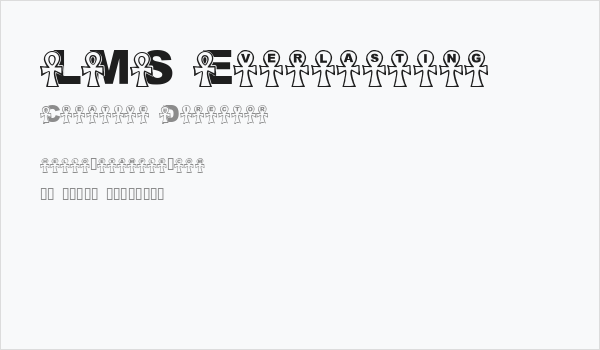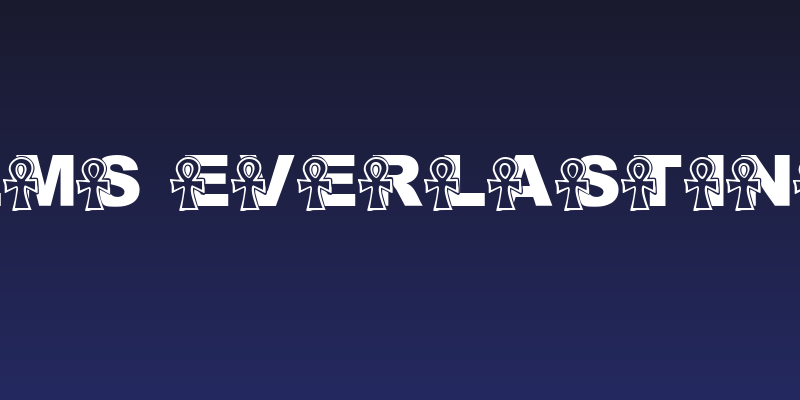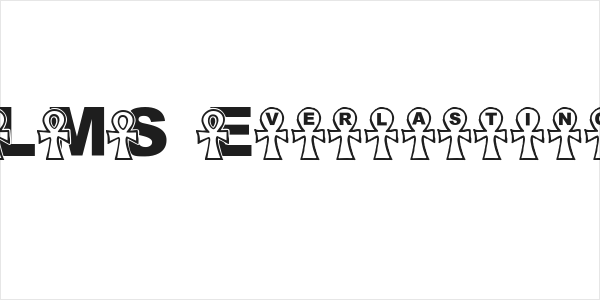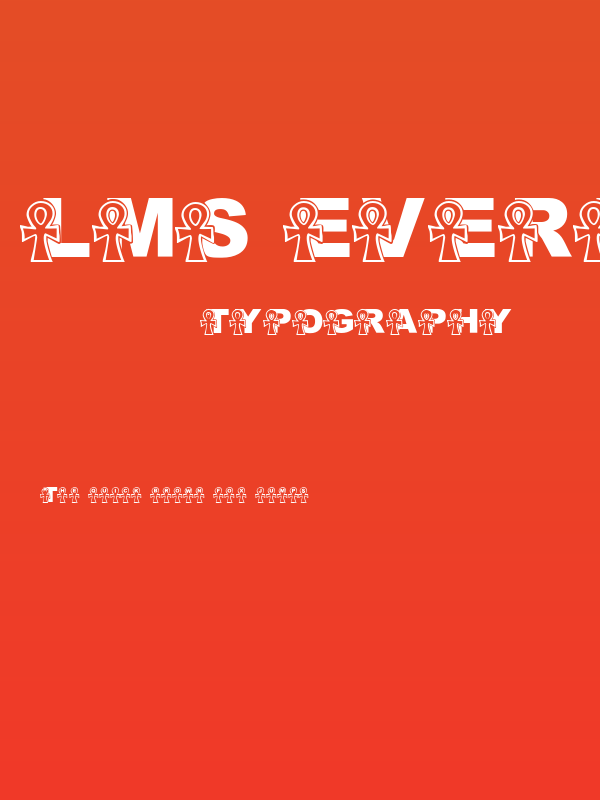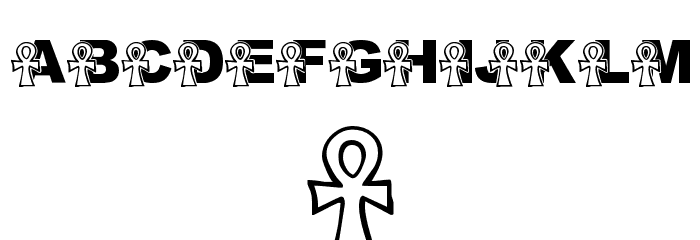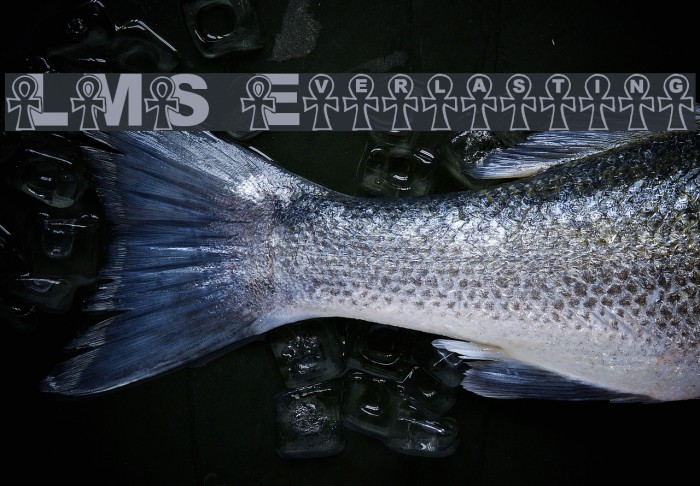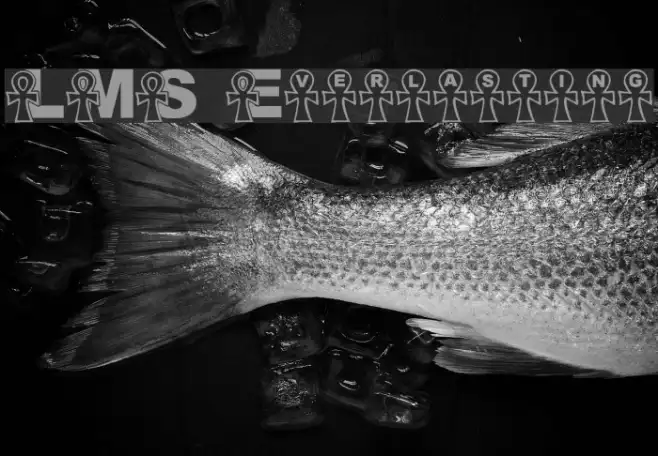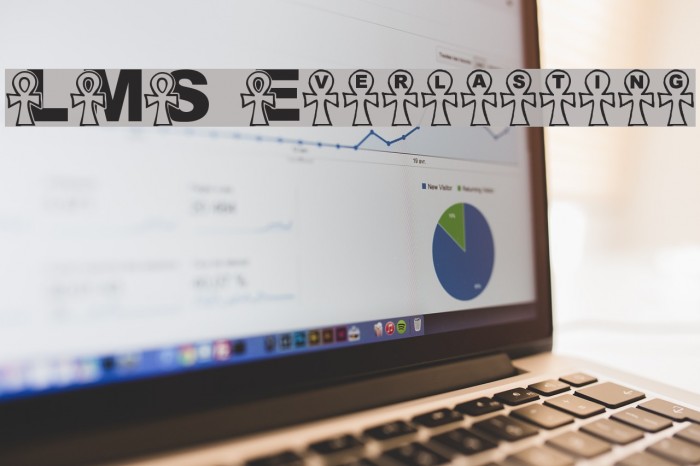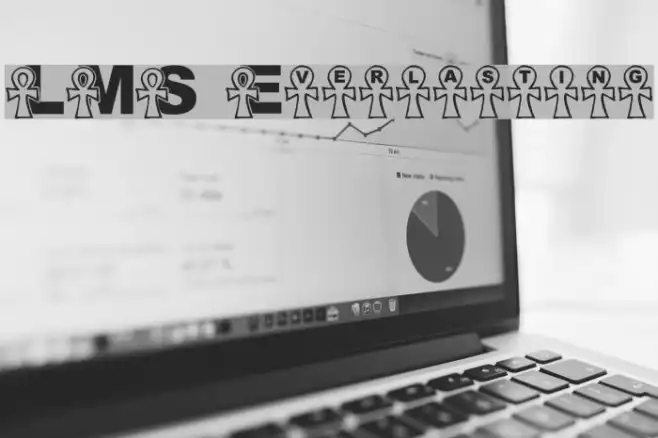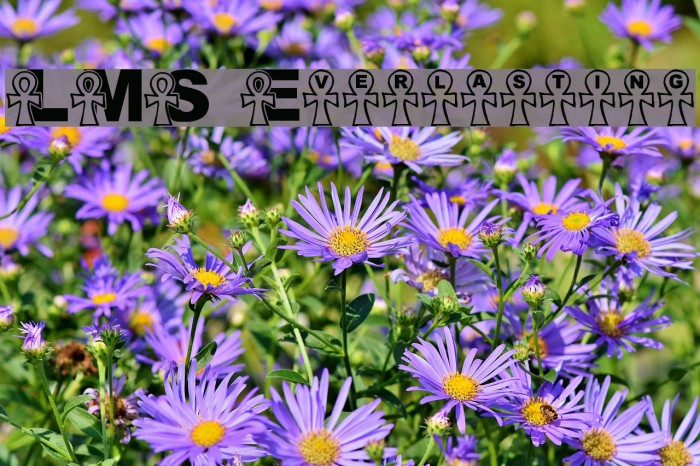
LMS Everlasting Font
LMS Everlasting Description
This font features a unique and decorative style, incorporating an ankh symbol within each character. The uppercase letters are bold and striking, with the ankh symbol seamlessly integrated into the design, creating a cohesive and thematic appearance. The lowercase letters maintain the same stylistic approach, ensuring consistency across the alphabet. The numbers and special characters also follow this pattern, making the font suitable for thematic or decorative purposes. The overall design is bold and eye-catching, making it ideal for projects that require a strong visual impact.
| Use Case | Logos, Headlines, Themed Designs |
| Proposed Projects | Ideal for themed posters, event invitations, or branding that requires a unique and symbolic touch. |